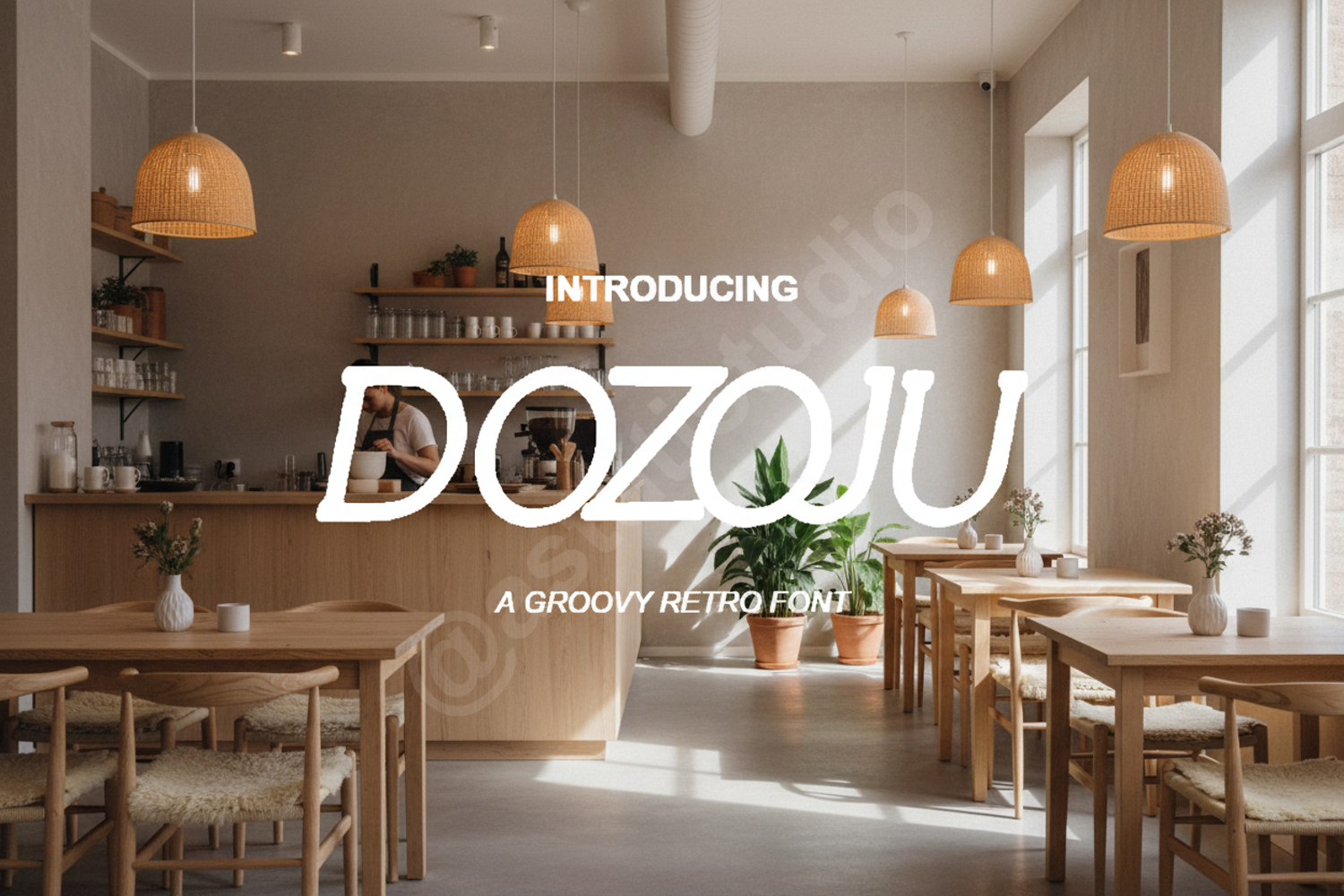
Dozoju - Modern Geometric Sans Serif
Dozoju
Elevate your creative projects with Dozoju, a premium geometric sans serif font that balances modern sophistication with exceptional readability. Crafted with precision, Dozoju offers a clean and minimalist aesthetic that makes it a versatile powerhouse for any designer's toolkit. Whether you are building a brand identity or designing a sleek editorial layout, this font provides the professional edge your work deserves.
- Branding and Identity: Perfect for logos, business cards, and corporate stationery.
- Editorial Design: Ideal for magazine headers, body text, and contemporary book covers.
- Digital Presence: Optimized for high-legibility on websites and mobile applications.
- Social Media: Create eye-catching quotes, stories, and promotional graphics.
- Wedding and Events: Elegant enough for modern invitations and minimalist event signage.